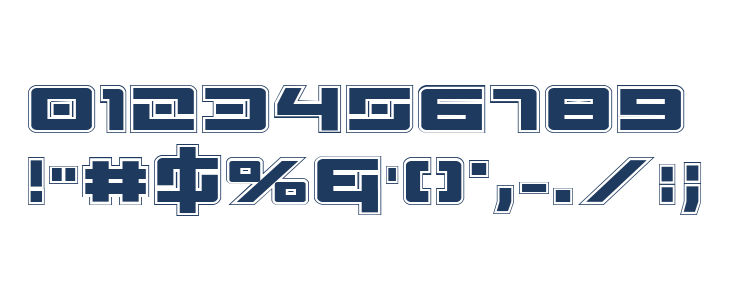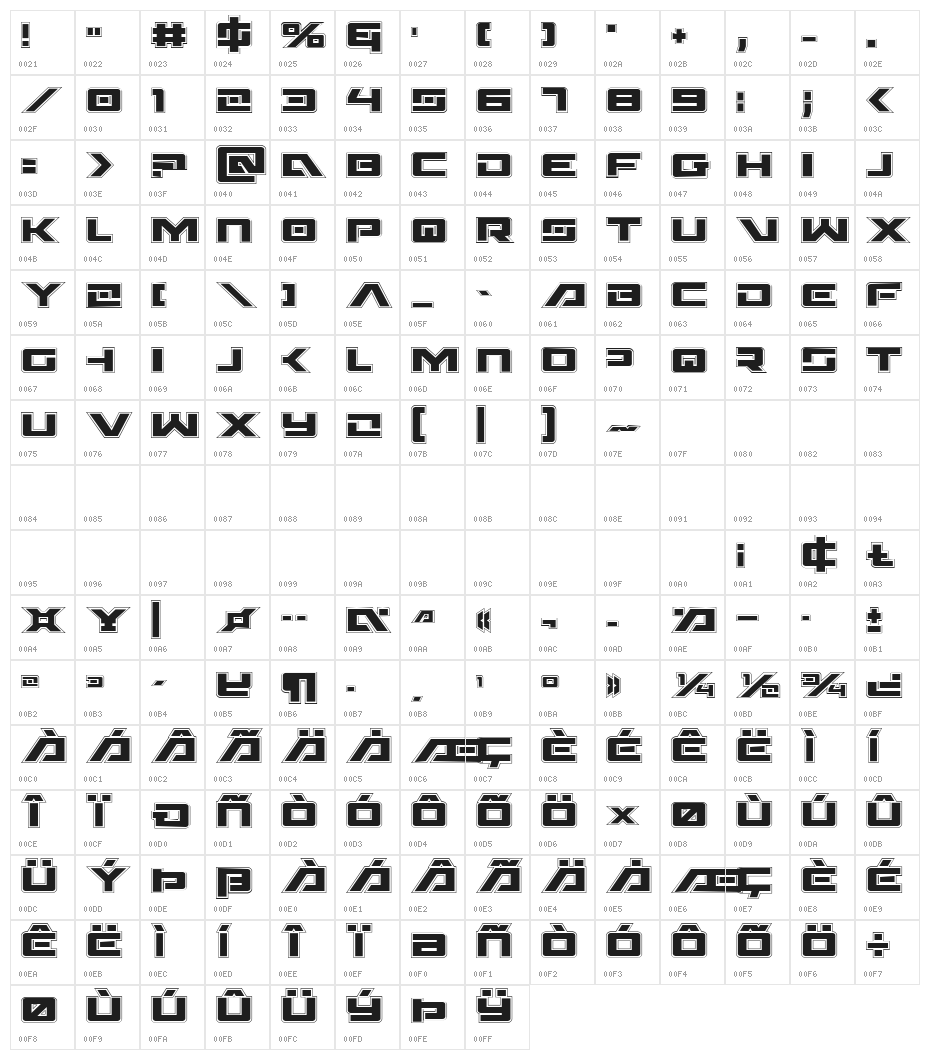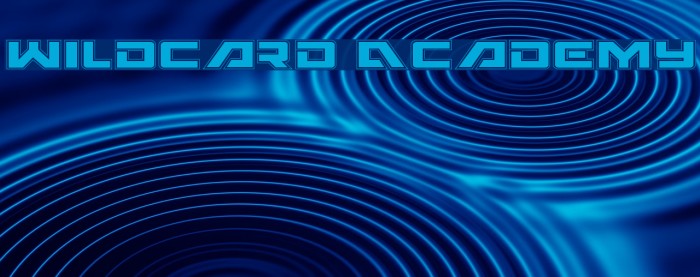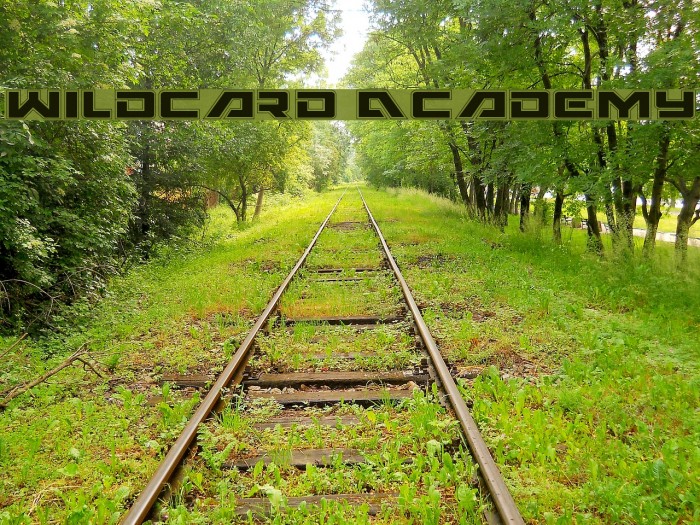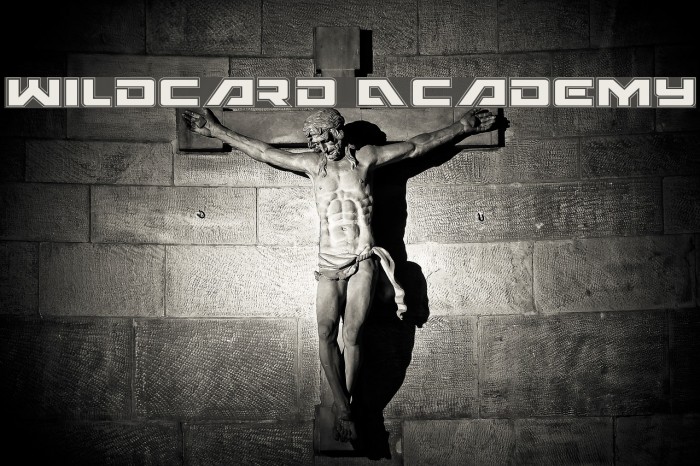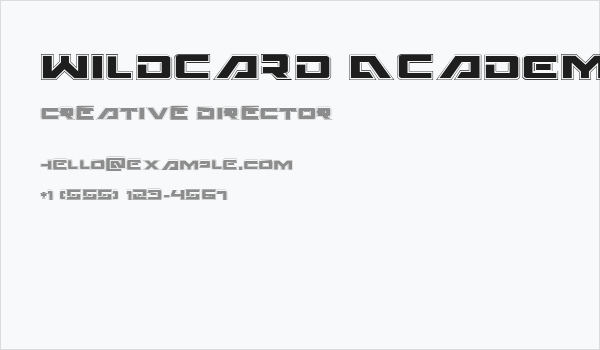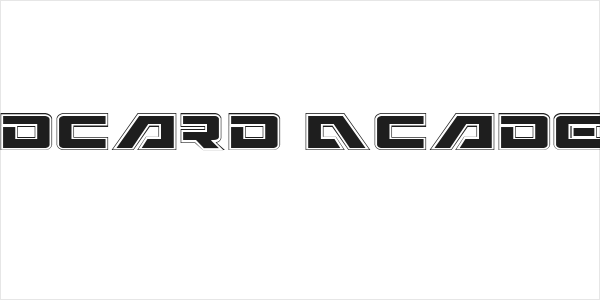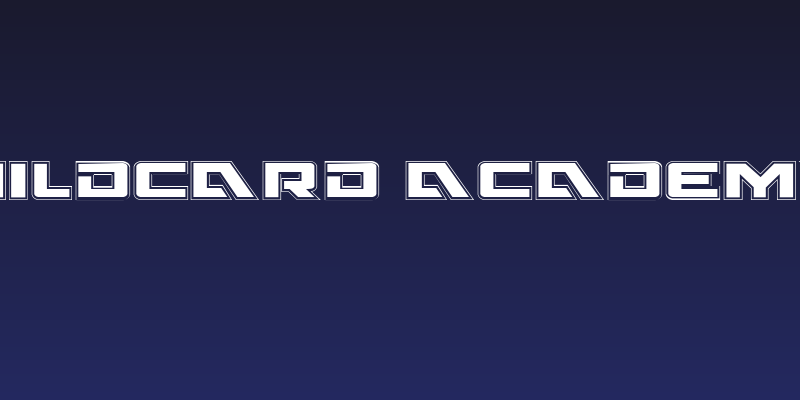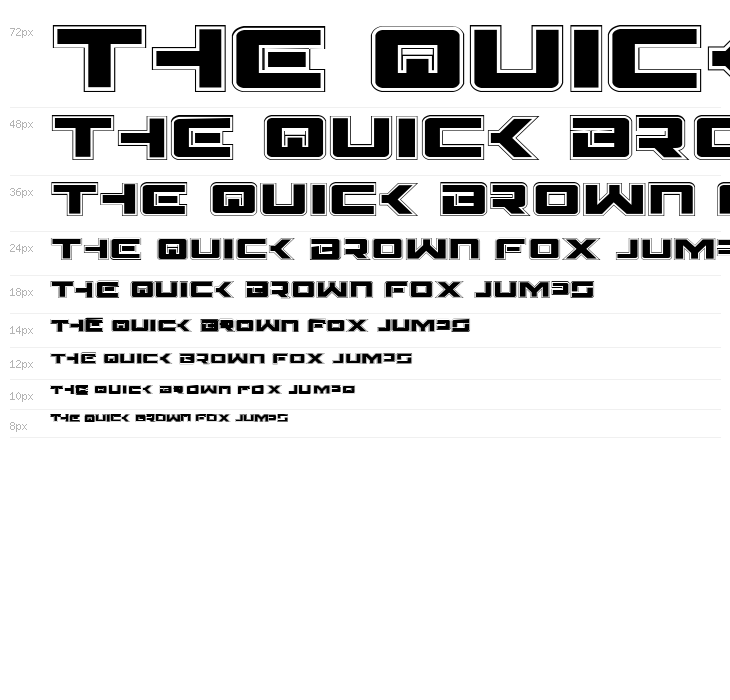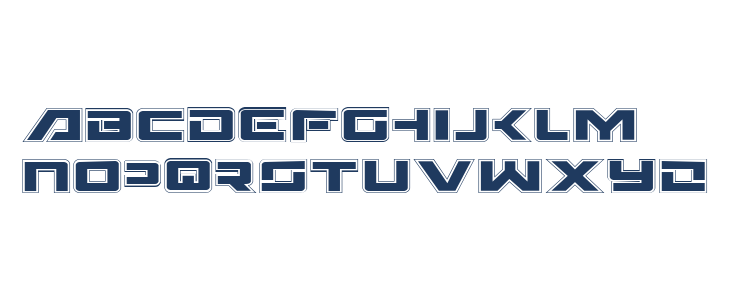
Wildcard Academy Font
Wildcard Academy Description
This font features a bold, futuristic design with a strong geometric influence. The characters are constructed with sharp angles and a consistent stroke width, giving them a robust and modern appearance. The uppercase and lowercase letters maintain a uniform style, while the numerals and special characters complement the overall aesthetic. The font's design is reminiscent of digital or sci-fi themes, making it ideal for projects that require a contemporary and edgy look. The spacing between characters is tight, enhancing the compact and cohesive feel of the text.
| Proposed Projects | Ideal for sci-fi themed designs, tech branding, video game titles, and digital media. |